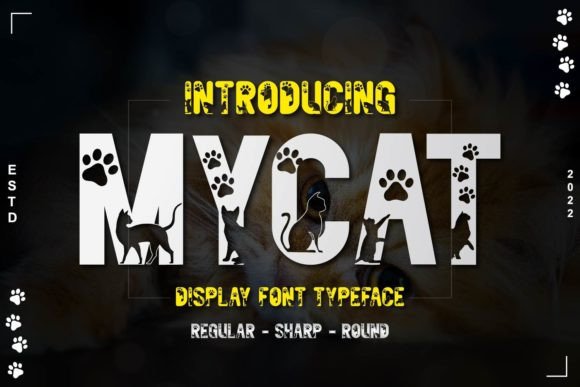
Welcome to the whimsical world of Mycat Font, a display font family designed to bring a delightful touch to your creative projects. Crafted with meticulous care by Mahesa Design, Mycat's unique charm lies in its Cat-themed characters that effortlessly infuse a joyful and playful spirit into any design.
Mycat is more than just a font; it's a magical portal that transports you to a world of imagination and enchantment. Its playful and authentic nature makes it the perfect companion for children's activities, crafts, and t-shirt designs. Picture your little ones' eyes sparkling with delight as they see their favorite feline friends come to life on their creations.
With Mycat Font, you can effortlessly weave a narrative of joy and adventure into your designs. Its playful curves and whimsical characters will capture the hearts of your audience, leaving them with a smile on their face. Unleash your creativity and let Mycat Font guide you on a journey of artistic expression.
But Mycat Font's allure extends beyond its whimsical charm. It boasts a versatile personality that adapts seamlessly to a wide range of design projects. Its playful nature lends itself perfectly to children's books, invitations, and greeting cards, while its sophisticated side shines through in logos, branding, and social media graphics.
Mycat Font is not just a collection of letters; it's a gateway to a world of boundless creativity. Its enchanting characters will ignite your imagination and inspire you to create designs that captivate and delight. Embrace the magic of Mycat Font and embark on a creative adventure like no other.